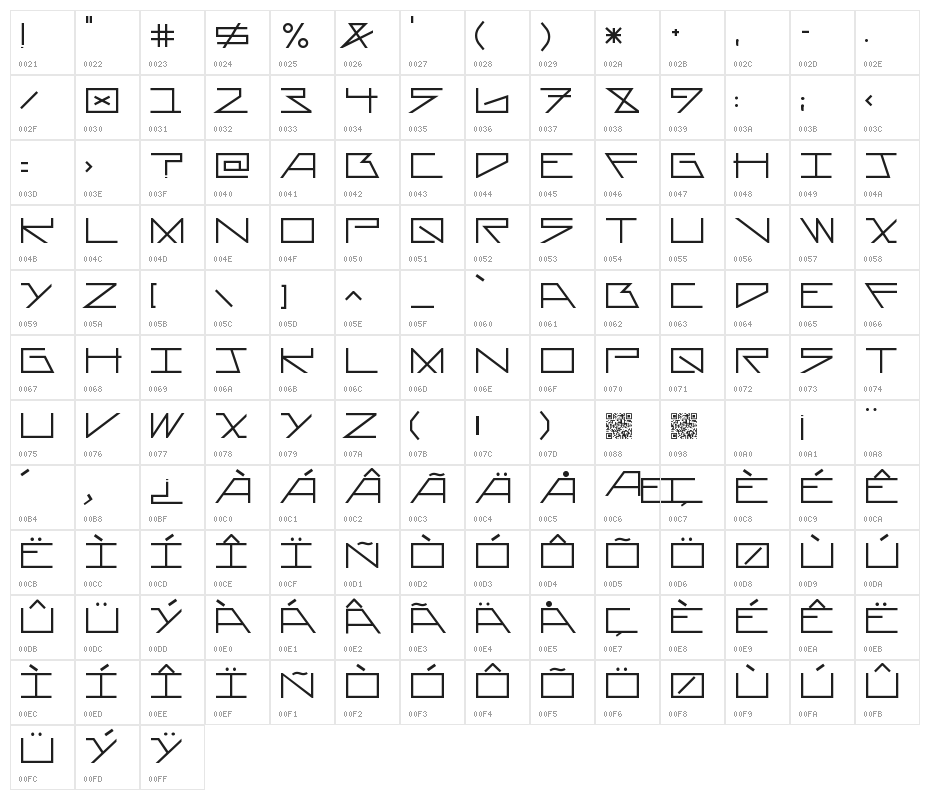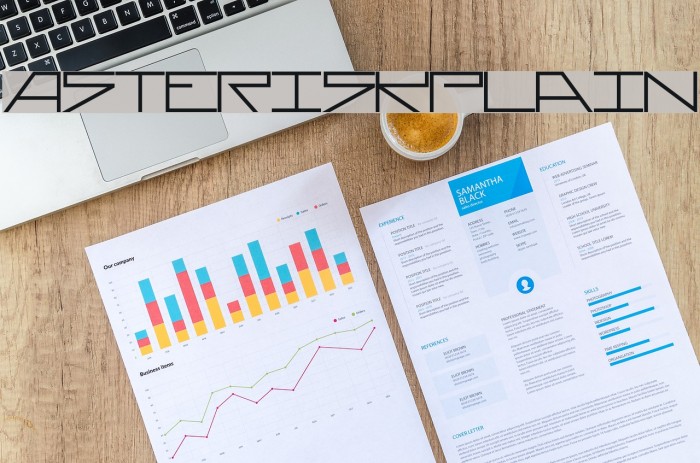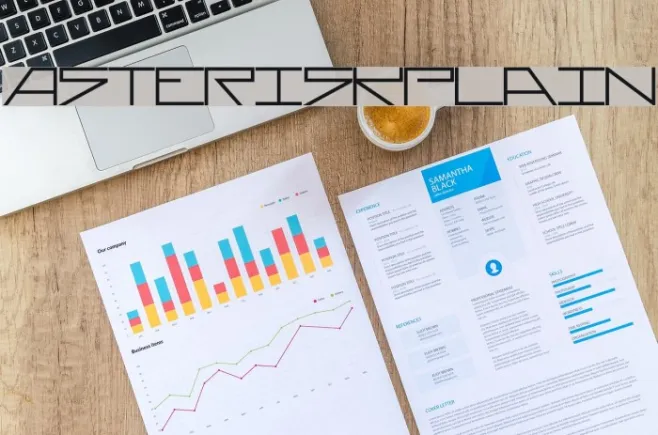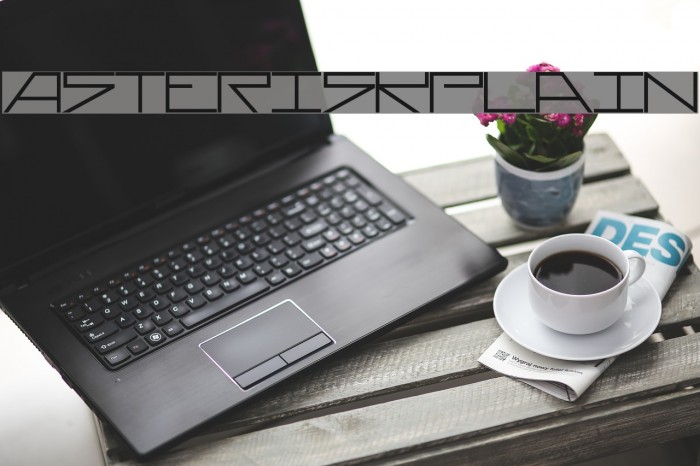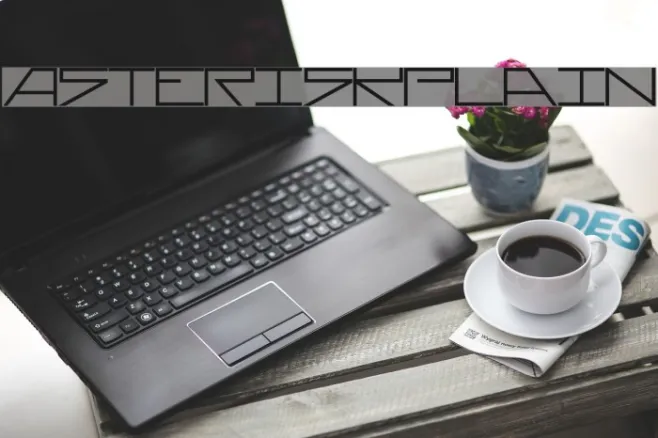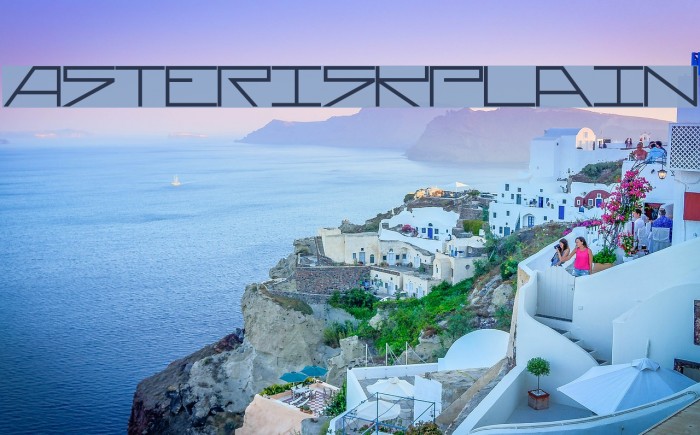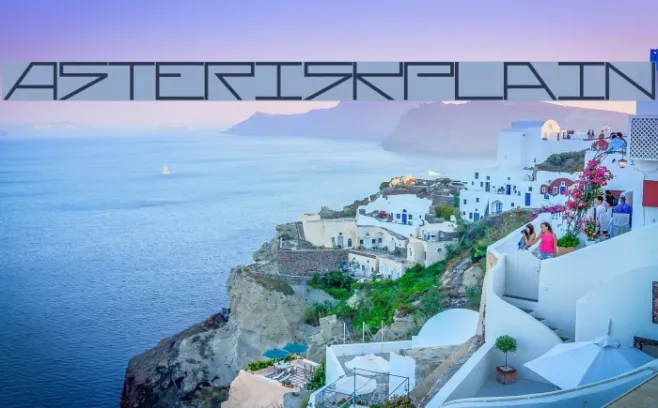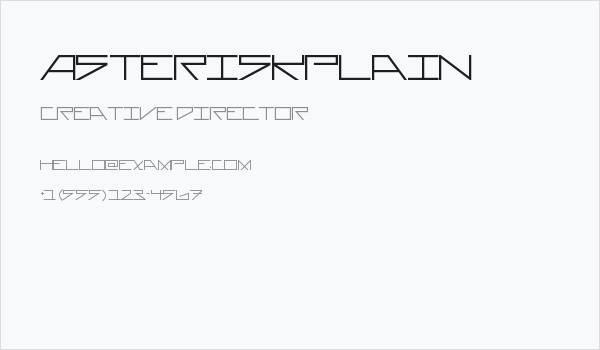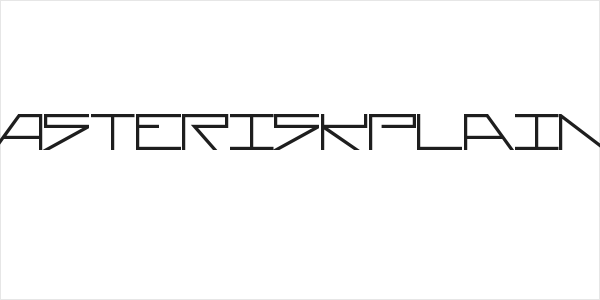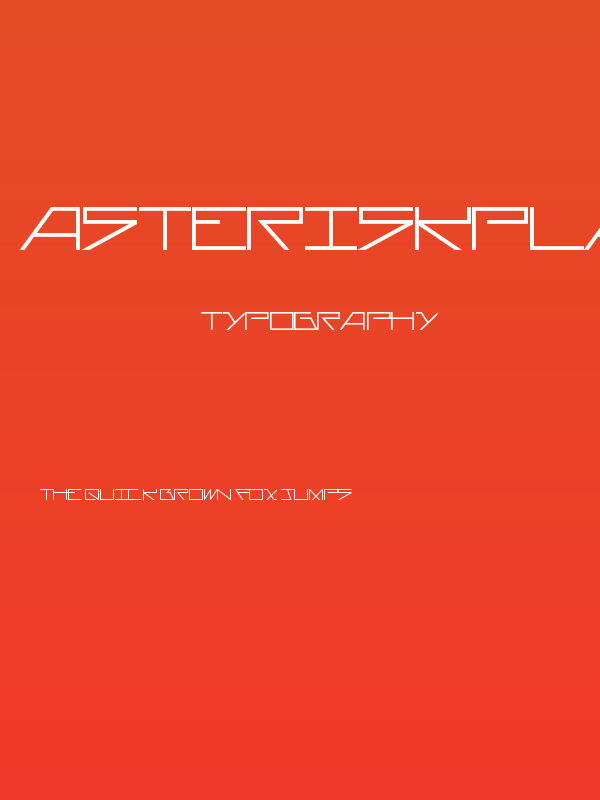
AsteriskPlain Font
AsteriskPlain Description
This font features a highly geometric and angular design, characterized by sharp edges and a futuristic aesthetic. The characters are constructed with straight lines and acute angles, giving it a distinct, modern look. The uppercase and lowercase letters maintain a consistent style, with a uniform height and width that enhances readability despite the unconventional shapes. Numbers and special characters follow the same design principles, ensuring a cohesive appearance across all glyphs. This font's unique style makes it stand out, ideal for projects that require a bold and innovative visual impact.
| Proposed Projects | Ideal for sci-fi themed designs, tech branding, video game interfaces, and modern art posters. |